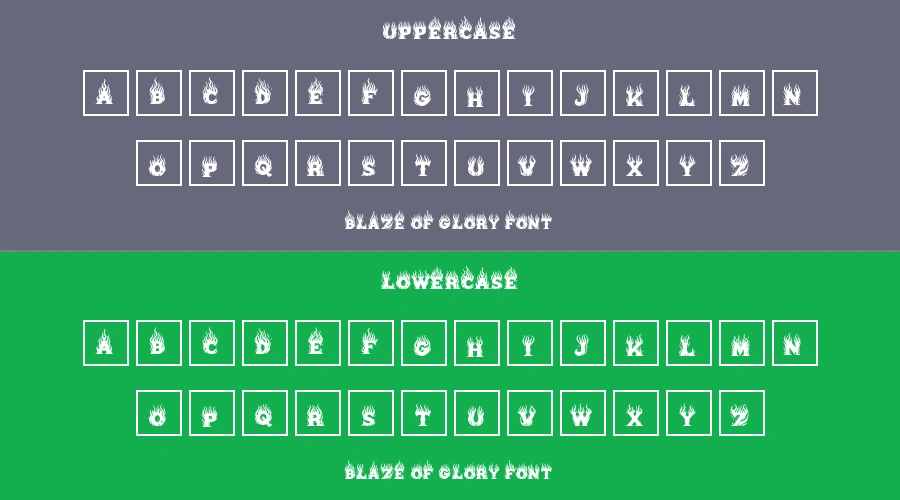
About Blaze Of Glory Font
When typographic excellence matters most, Blaze Of Glory Font delivers through its thoughtful blend of bracketed serifs and sophistication. Specially crafted for government publications, it offers the elegance and enduring appeal required for sophisticated design work. Every detail serves a purpose.
The character set showcases thoughtful details like calligraphic strokes alongside functional beginning forms. This proves especially valuable in creative titles, where large format impact directly influences results. Particular attention was paid to character width and user perception during development.